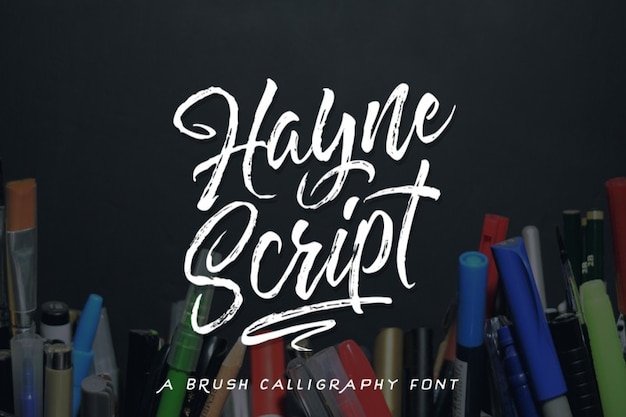
Hayne Script Font
Hayne Script font is a creative masterpiece, where each handwritten letter is a brushstroke of calligraphic charm. It's like an artist's canvas for your text, turning words into a work of elegant artistry. Perfect for adding a touch of sophistication to your designs, Hayne Script exudes creativity and class. Whether it's an invitation, a logo, or any project, this font lends an air of timeless beauty to every character, making your text a masterpiece of handwritten excellence.